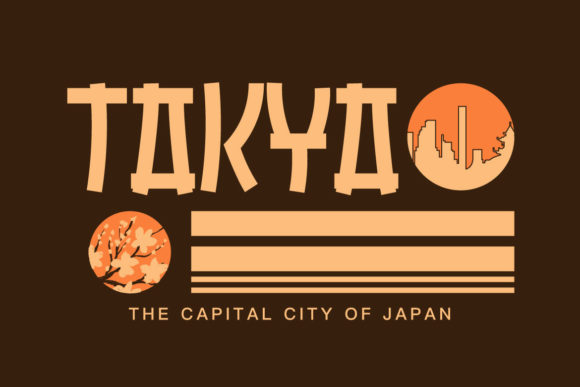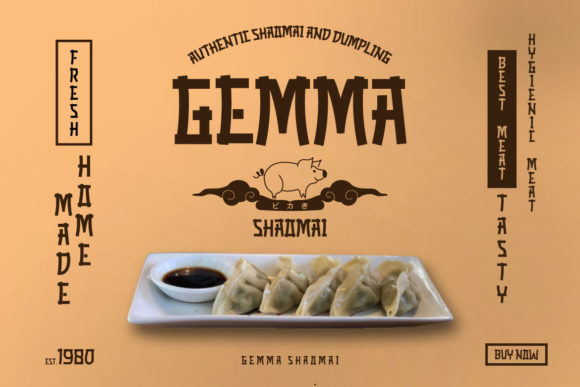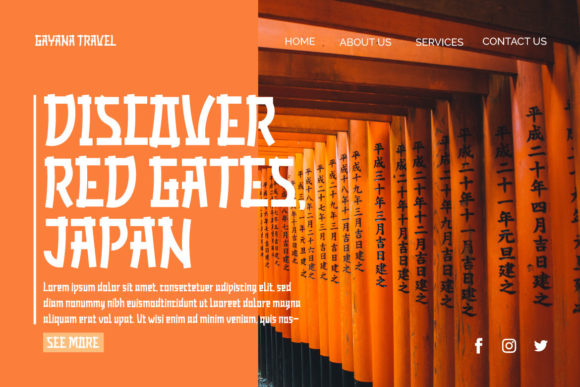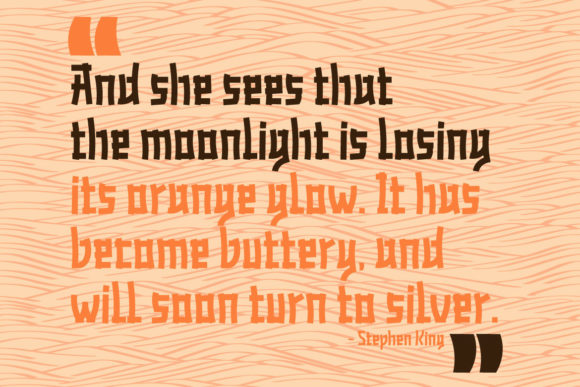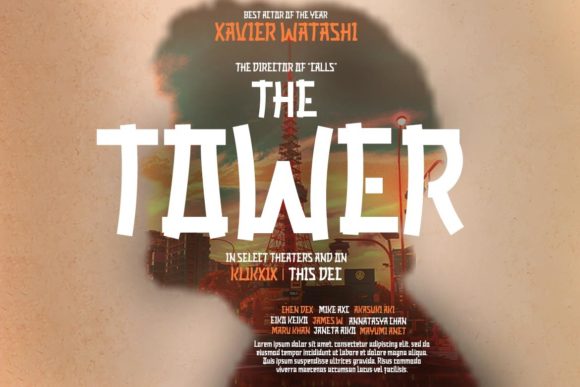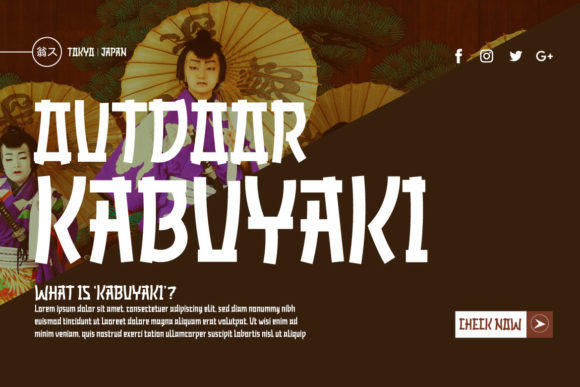
Discover the Unique Charm of Gayana Font: Elevate Your Designs with Traditional Japanese Flair
In the world of typography, fonts play a crucial role in conveying the tone and aesthetic of a design project. For designers and crafters seeking to infuse their work with a touch of traditional Japanese culture, Gayana Font is an exceptional choice. This faux-Japanese display font is meticulously crafted to incorporate traditional Japanese characters, making it an ideal selection for projects that require a distinctive and memorable visual identity.
The Essence of Gayana Font
Gayana Font is more than just a typeface; it’s a gateway to the rich cultural heritage of Japan. By integrating traditional Japanese characters into your designs, you can create a unique and captivating visual narrative that resonates with your audience. Whether you’re working on logotypes, food banners, branding, brochures, posters, movie titles, book titles, or quotes, Gayana Font offers a versatile and elegant solution.
Unleash Your Creativity with Gayana Font
The possibilities are endless when working with Gayana Font. Its striking and unusual graphic display is sure to captivate viewers, making your projects stand out in a crowded design landscape. Here are some ways you can leverage Gayana Font to elevate your designs:
- Logotypes: Create a lasting impression with a custom logotype that incorporates Gayana Font, perfect for businesses seeking to establish a strong brand identity.
- Food Banners: Add a touch of authenticity to your food banners, highlighting the cultural inspiration behind your culinary creations.
- Branding: Develop a cohesive brand image by incorporating Gayana Font into your marketing materials, from business cards to packaging.
- Brochures: Guide your readers through a visually stunning brochure that showcases your products or services in a unique and engaging way.
- Posters: Create eye-catching posters that effectively communicate your message, whether it’s for an event, product launch, or social cause.
- Movie Titles: Add a cinematic touch to your movie titles, setting the tone for an unforgettable viewing experience.
- Book Titles: Make your book titles stand out on bookshelves with a distinctive and captivating font that reflects the essence of your story.
- Quotes: Inspire and motivate your audience with beautifully designed quotes that incorporate Gayana Font.
Why Choose Gayana Font?
Gayana Font offers a unique combination of traditional Japanese style and modern typography, making it an excellent choice for designers and crafters seeking to:
- Create a distinctive visual identity: Stand out in a crowded design landscape with a font that tells a story.
- Connect with a wider audience: Tap into the cultural fascination with Japanese aesthetics and appeal to a broader audience.
- Evoke emotions and memories: Use Gayana Font to create an emotional connection with your audience, making your designs more memorable.
- Experiment with different design styles: Mix and match Gayana Font with other typography and design elements to create a unique look.
- Customize your designs: Adjust font sizes, colors, and styles to suit your design requirements.
- Save time: Use Gayana Font to streamline your design process, reducing the need for extensive font customization.
In conclusion, Gayana Font is an exceptional choice for designers and crafters seeking to infuse their work with traditional Japanese culture and style. With its unique blend of faux-Japanese characters and modern typography, Gayana Font offers a versatile and captivating solution for a wide range of design projects. Start utilizing Gayana Font today and discover the limitless possibilities it offers for creating stunning and memorable designs.